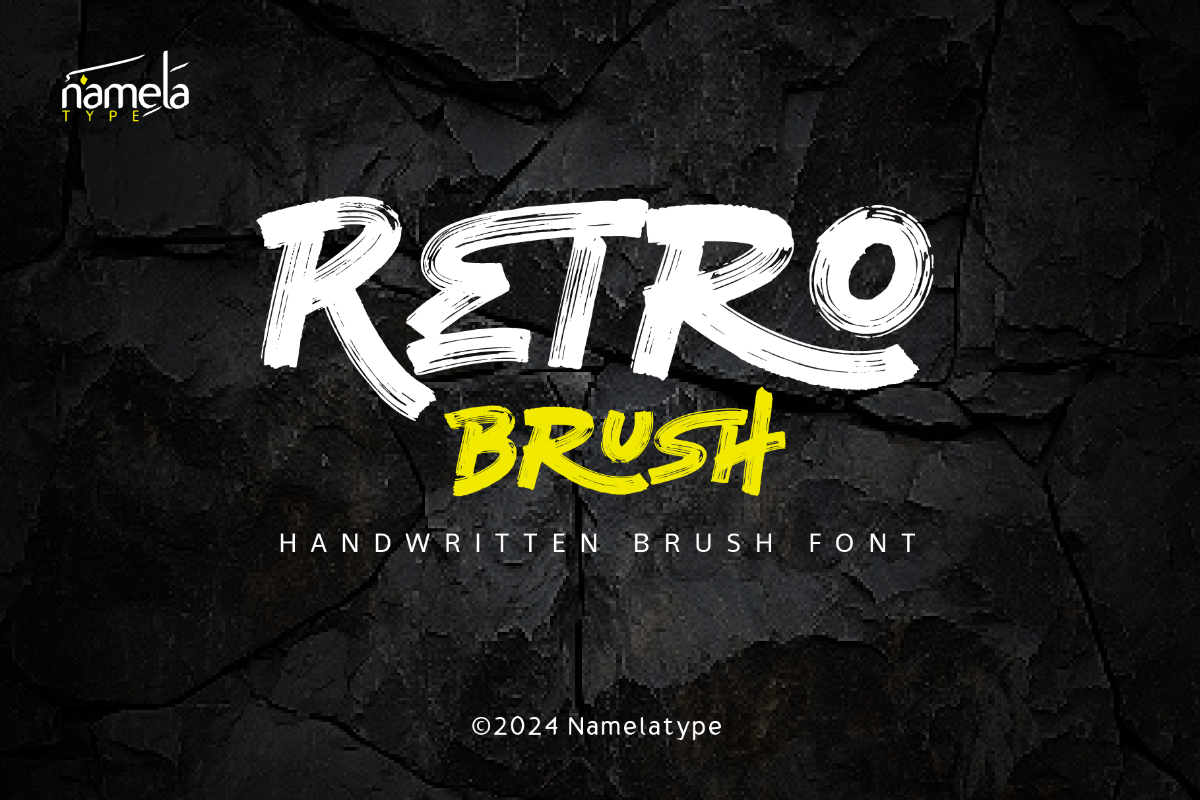
Retro Brush Alternate
Retro Brush Font - The Expressive Handwritten Brush Typeface for Web There’s something magnetic about a font that feels painted by hand—raw, warm, and alive. Retro Brush is exactly that kind of typeface. Designed to command attention, this expressive brush font captures the gritty charm of dry-brush lettering while remaining practical for modern design workflows. Created by Namelatype, Retro Brush Expressive Handwritten Font delivers a bold visual presence that clean, geometric typography ofte